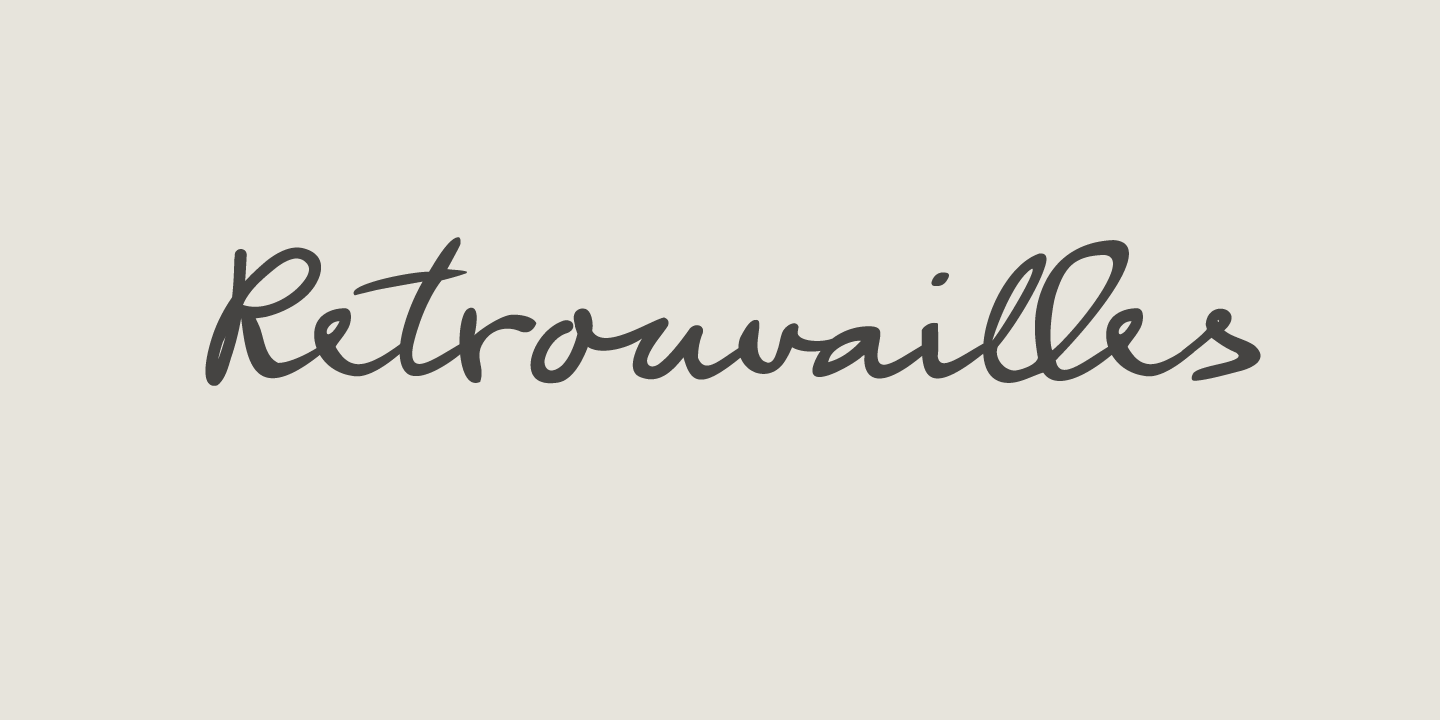
The Retrouvailles Font is perfect for romantic French restaurant branding, nostalgic reunion event invitations, elegant vintage wedding stationery, sentimental family celebration materials, heartfelt anniversary commemorations, emotional storytelling publications, memory preservation services, intimate café signage, and touching reunion campaigns that require evocative typography with deep emotional resonance and romantic French heritage.
What makes the Retrouvailles Font so exciting is its profound ability to capture the exquisite emotion and bittersweet beauty of meaningful reunions, rediscovered connections, and the joy of coming together again after time apart. This extraordinary typeface embodies the essence of "retrouvailles" - that uniquely French concept of joyful reunion - featuring graceful letterforms with romantic curves and emotionally resonant character details that create an immediate sense of warmth, nostalgia, and the precious nature of reconnection. The font's deeply emotional appeal and French romantic heritage make it the perfect choice for brands and projects that celebrate human relationships, commemorate special moments, and honor the irreplaceable value of meaningful connections that transcend time and distance.
The Retrouvailles Font family typically includes regular, italic, and decorative weights, along with romantic alternates, sentimental flourishes, and elegant design elements that provide designers with comprehensive tools for creating emotionally resonant branding systems and heartfelt visual communications across various reunion and celebration applications.
Event planners and sentimental brand creators consistently choose Retrouvailles Font Free Download for its unmatched ability to convey authentic emotional depth and romantic French sophistication. This touching typeface represents the perfect fusion of heartfelt sentiment and elegant design craftsmanship, offering professionals a powerful tool for creating memorable experiences that resonate with audiences seeking meaningful connections and emotional authenticity. Whether you're developing branding for reunion services, creating materials for anniversary celebrations, designing romantic wedding communications, or crafting sentimental marketing campaigns, this font delivers the emotional impact and sophisticated charm that heartfelt communications require.
The beautifully crafted letterforms of the Retrouvailles Font showcase romantic proportions and emotionally evocative styling details that ensure maximum sentimental impact while maintaining elegant readability across various celebration applications. The font's tender character and French romantic appeal create immediate associations with love, connection, and the precious moments that define our most cherished relationships and memories.
Romantic event designers and sentimental brand managers appreciate the font's comprehensive emotional versatility and culturally sophisticated design principles, which enable the creation of typography that genuinely touches hearts while maintaining the elegant standards essential for premium celebration and reunion services.
For organizations seeking to establish authentic emotional connections with audiences who value meaningful relationships and communicate genuine care for human connection through their visual identity, the Retrouvailles Font provides an exceptional typography solution. Its emotionally centered foundation and proven romantic appeal make it particularly suitable for event planning services, memory preservation companies, romantic hospitality venues, and brands that prioritize authentic human connection and emotional storytelling.
The font's optimization for both traditional celebration print materials and modern digital reunion platforms ensures consistent emotional impact across all heartfelt communication channels, while its timeless romantic aesthetic provides enduring value for relationship-focused brand systems requiring typography that authentically represents the eternal importance of human connection and the irreplaceable joy of meaningful reunions in today's increasingly connected yet emotionally distant world.